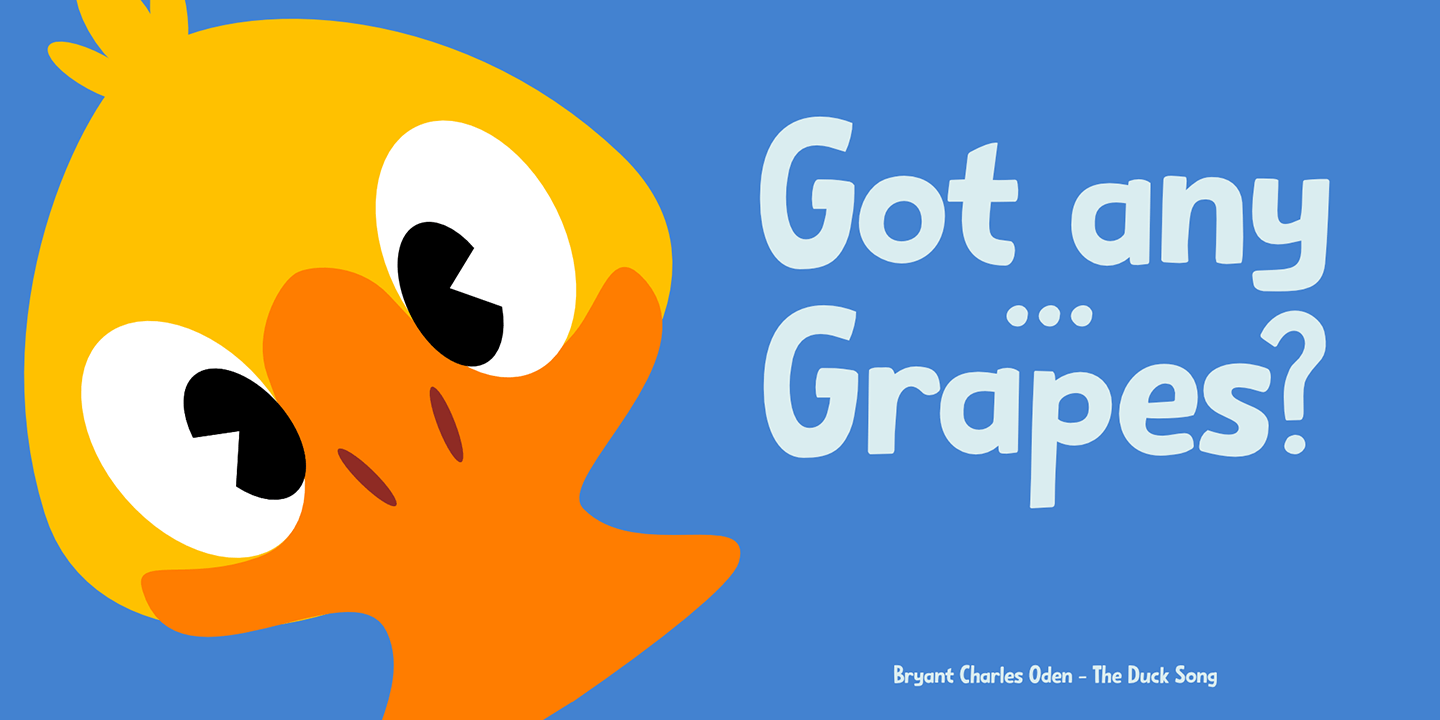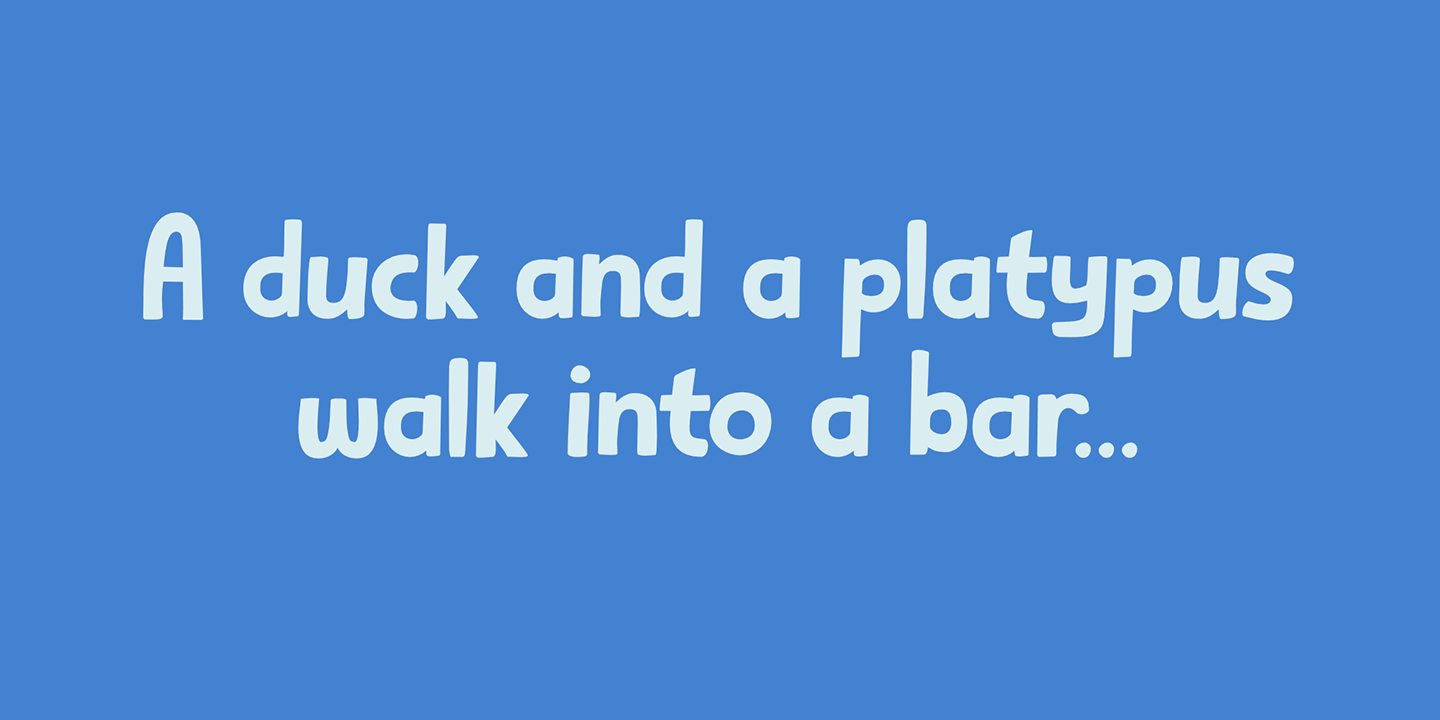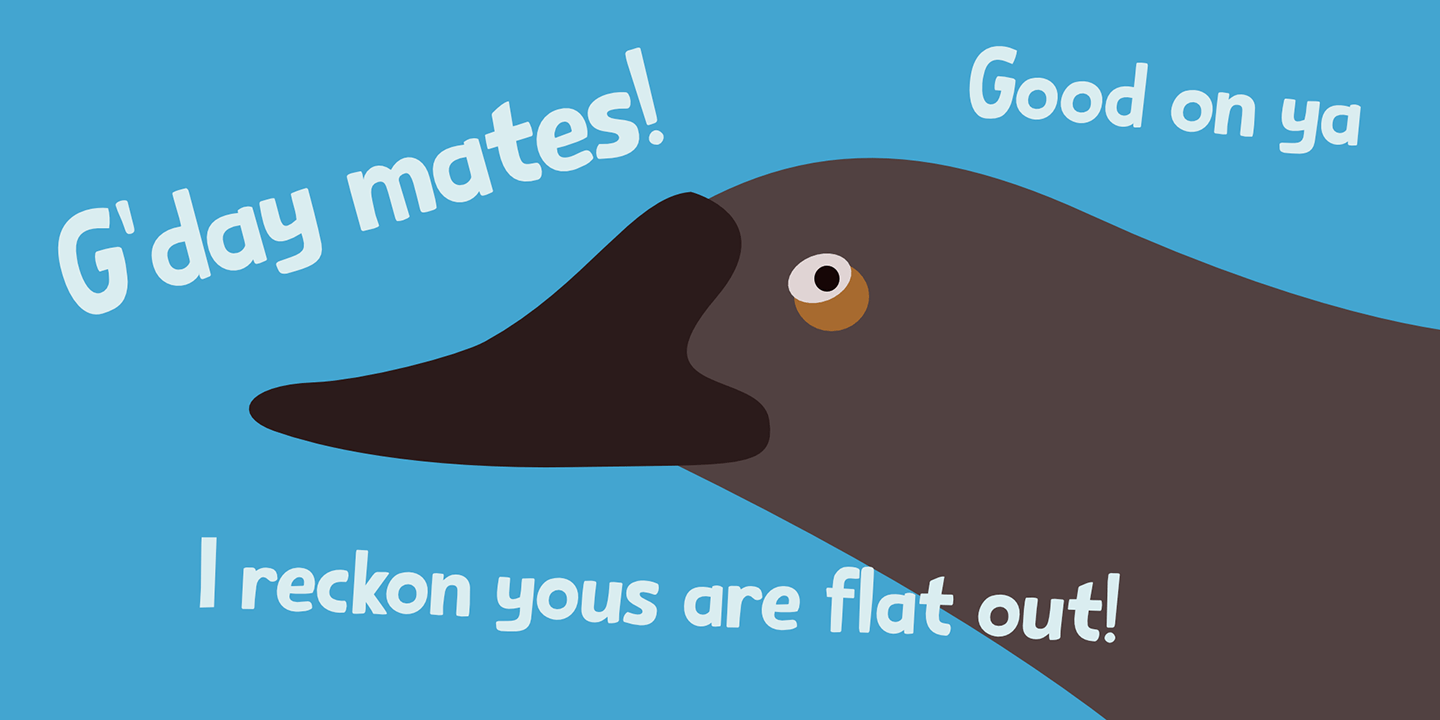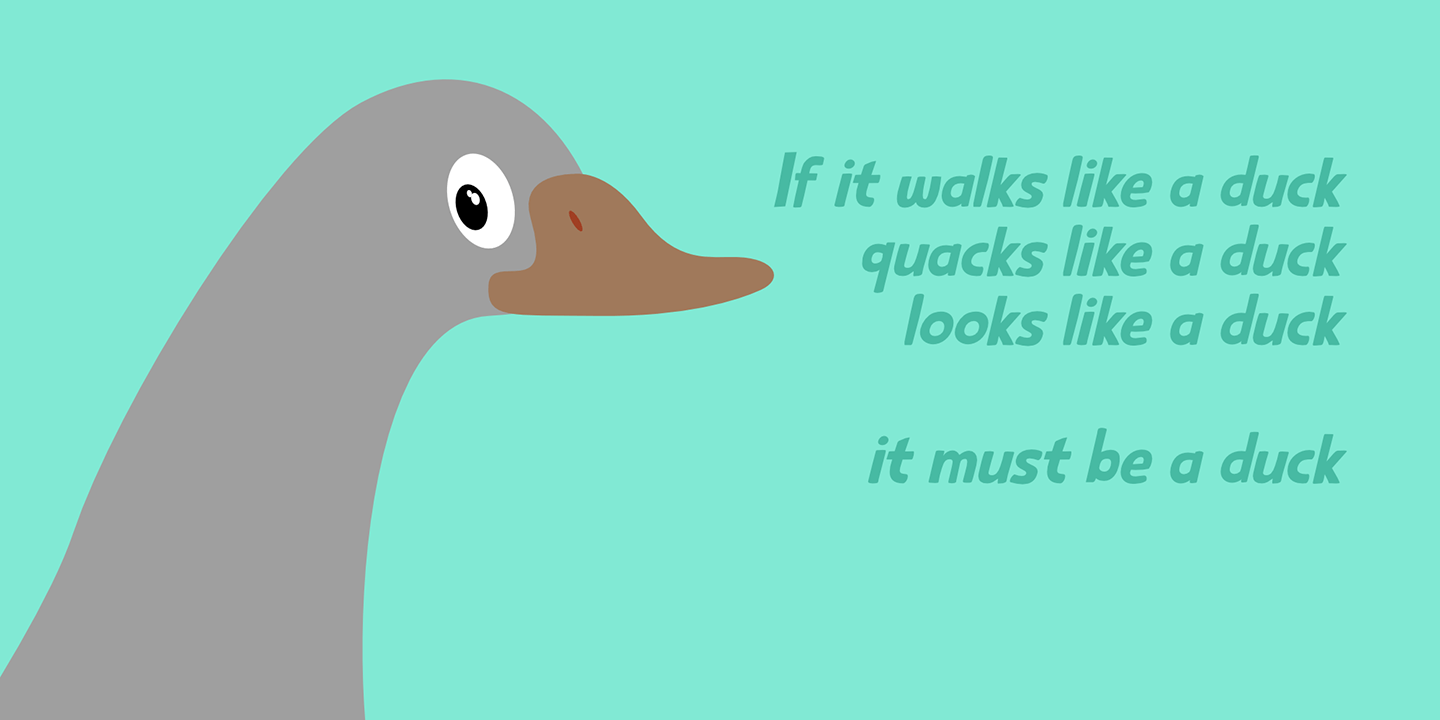
About Sitting Duck
I have no particular affection for ducks, nor do I keep them, but I thought it was about time someone named a font after them! Sitting Duck is a jolly comic/kids font. Handmade (of course), cute and useful. Comes with extensive language support and a…